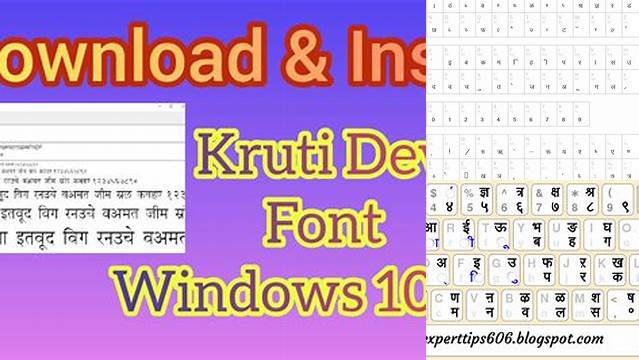
What is Kruti Dev 011 Font?
Kruti Dev 011, this popular font, is a crucial tool for anyone working with Hindi text on their computers. It's a non-Unicode font, which means it uses a specific character encoding system. Unlike Unicode fonts, which represent characters universally, Kruti Dev 011 relies on a unique layout. This font is particularly favored for its distinctive style and ease of use, making it a standard in many government offices, educational institutions, and publishing houses across India. Its classic design and readability have cemented its place as a go-to choice for Hindi typing. However, it's worth noting that non-Unicode fonts like Kruti Dev 011 have compatibility issues when transferring documents between different systems or software that primarily support Unicode. This is why understanding its limitations and how it compares to other fonts is essential. Despite the rise of Unicode fonts, Kruti Dev 011 maintains its relevance due to its familiarity and widespread use in legacy systems and documents. For those who have grown accustomed to its layout and character mapping, it remains a preferred option for Hindi text composition. The font's straightforward design also makes it an excellent choice for creating documents that need to be easily readable and printable, further contributing to its continued popularity in various sectors. Whether you are drafting official letters, creating educational materials, or working on publishing projects, Kruti Dev 011 provides a reliable solution for your Hindi typing needs. Its enduring presence in the digital landscape underscores its importance in preserving and promoting the Hindi language in the digital age.
Why is Kruti Dev 011 So Popular?
Okay, so why do people love Kruti Dev 011 so much? Well, there are a few key reasons for its popularity. First off, Kruti Dev 011 is super user-friendly. Many people who grew up using computers in India learned to type in Hindi using this font. It's like their first language in the digital world! The layout is familiar, and the keystrokes are ingrained in their muscle memory. This familiarity makes it a comfortable choice, especially for those who aren't as tech-savvy or who prefer a traditional typing experience. Another major reason for its popularity is its widespread use in government and official documents. A lot of official forms, letters, and publications in India still use Kruti Dev 011. This means that if you're working with government agencies or institutions, you'll likely need this font at some point. It's become a standard in these sectors, making it essential for anyone who needs to interact with them. Plus, Kruti Dev 011 has a distinct and readable style. The characters are clear and well-defined, making it easy to read documents typed in this font. This is particularly important for official documents where clarity is crucial. The font's aesthetic appeal also contributes to its popularity; it has a traditional, formal look that many people associate with official communication. While there are newer fonts available, Kruti Dev 011's classic appearance gives it a timeless quality that resonates with many users. Finally, the availability of typing tutors and resources that use Kruti Dev 011 has played a significant role in its continued use. Many typing tutorials and software programs designed to teach Hindi typing are based on the Kruti Dev 011 layout. This abundance of learning materials makes it easier for new users to pick up the font and start typing in Hindi. All these factors combined make Kruti Dev 011 a beloved and indispensable font for many people, especially in India.
Unicode vs. Non-Unicode Fonts: What's the Difference?
Now, let's talk about something important: the difference between Unicode and non-Unicode fonts. Kruti Dev 011 is a non-Unicode font, which means it works a little differently than the fonts you might be used to. Unicode fonts are like the universal language of computers. They assign a unique number to each character, no matter what language it is. This means that if you type something in a Unicode font, it will look the same on any computer that supports Unicode. This makes it super easy to share documents and make sure everyone sees the same thing. Think of it as everyone speaking the same digital language! Non-Unicode fonts, on the other hand, are more like dialects. They use a specific character encoding system that might not be recognized by all computers. Kruti Dev 011 falls into this category. It has its own unique way of mapping characters to keystrokes. This means that if you type something in Kruti Dev 011 and send it to someone who doesn't have the font installed, they might see gibberish or strange symbols instead of Hindi text. It's like trying to speak a language that someone else doesn't understand. The big advantage of Unicode fonts is compatibility. They work across different operating systems, software, and devices. You can type in Hindi using a Unicode font and be confident that it will look the same on a Windows computer, a Mac, or even a smartphone. This makes collaboration and document sharing much easier. Non-Unicode fonts like Kruti Dev 011 can be a bit trickier in this regard. You need to make sure that everyone who needs to view the document has the font installed, which can be a hassle. However, despite the rise of Unicode fonts, non-Unicode fonts like Kruti Dev 011 still have their place. Many people are used to typing in these fonts, and they might be required for certain legacy systems or documents. The key is to understand the differences and choose the right font for your needs. If you're working on a document that needs to be widely shared and accessible, Unicode is generally the way to go. But if you're working within a specific environment where Kruti Dev 011 is the standard, it might still be the best choice.